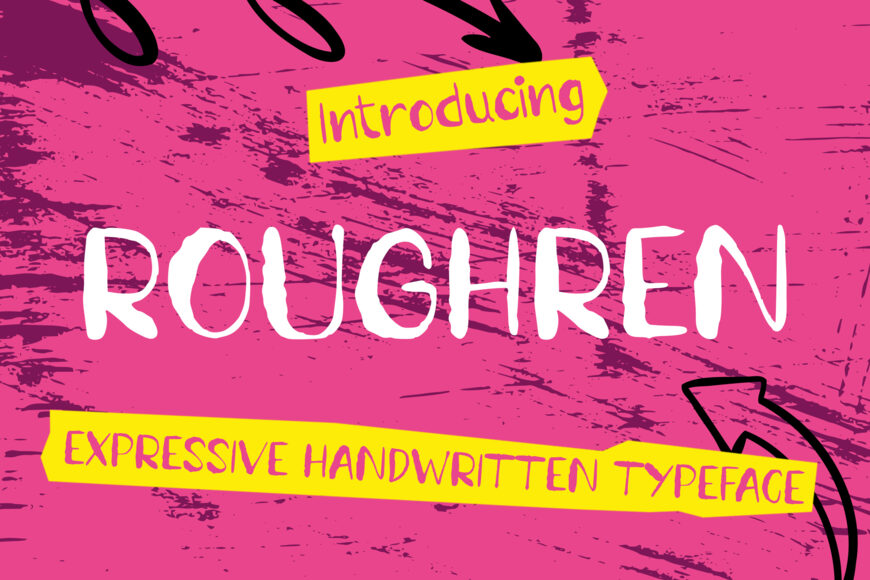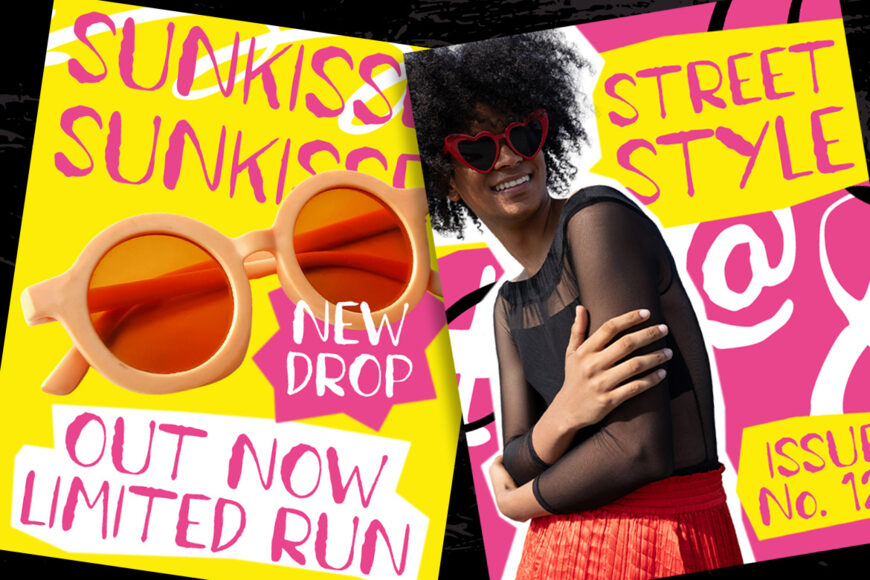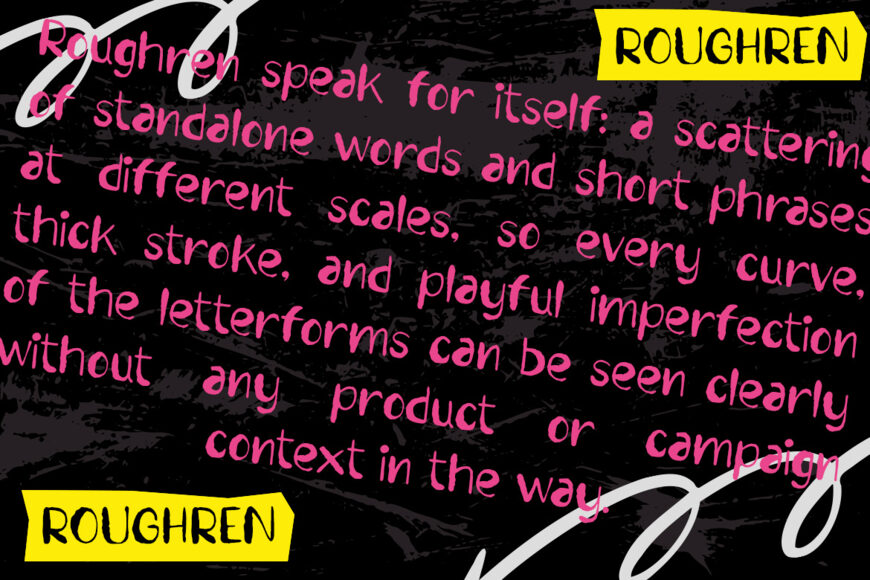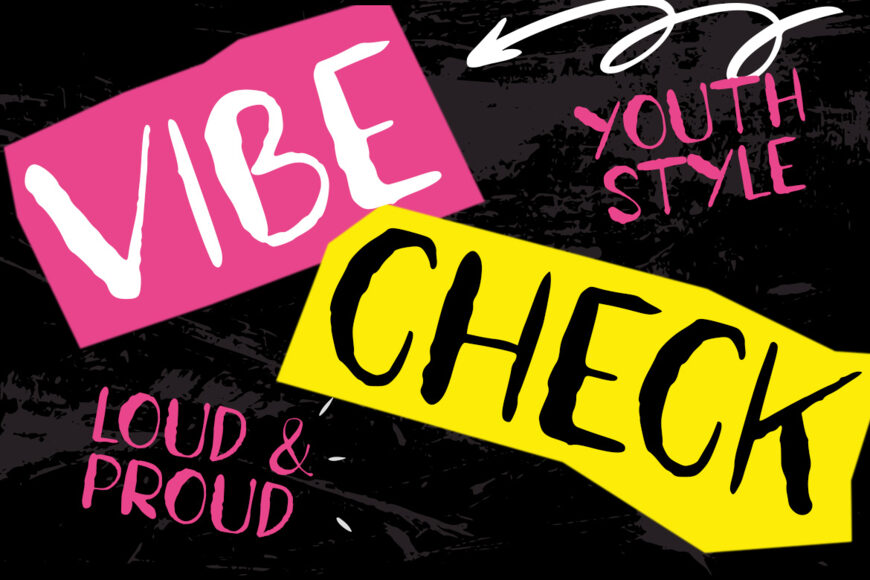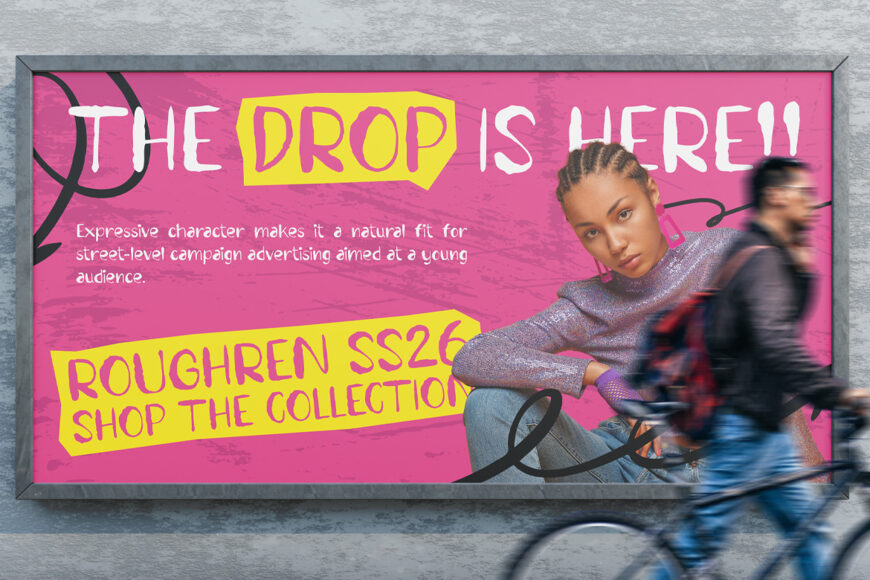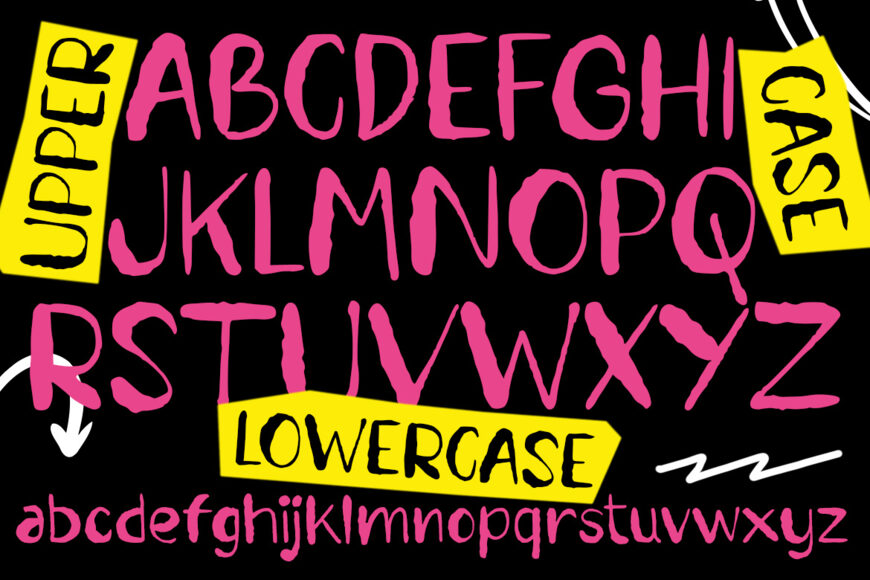
Roughren brings a fearless handwritten vibe to modern visuals through rough strokes, irregular letterforms, and bold marker-style shapes. Unlike polished typefaces, Roughren feels spontaneous, expressive, and naturally imperfect.
Its textured strokes create a raw handmade edge, while its strong forms keep every headline clear and punchy. Because of this, your typography instantly feels younger, louder, and more energetic. At the same time, its loose letter rhythm adds an authentic street-inspired character to every composition.